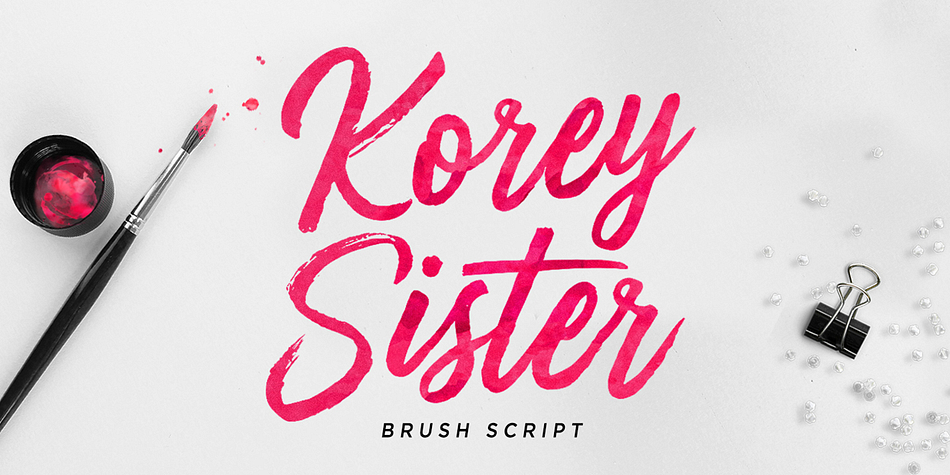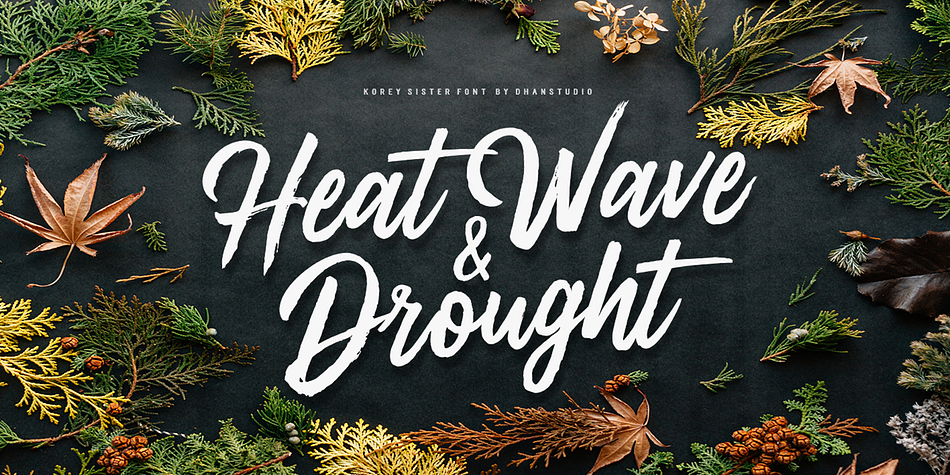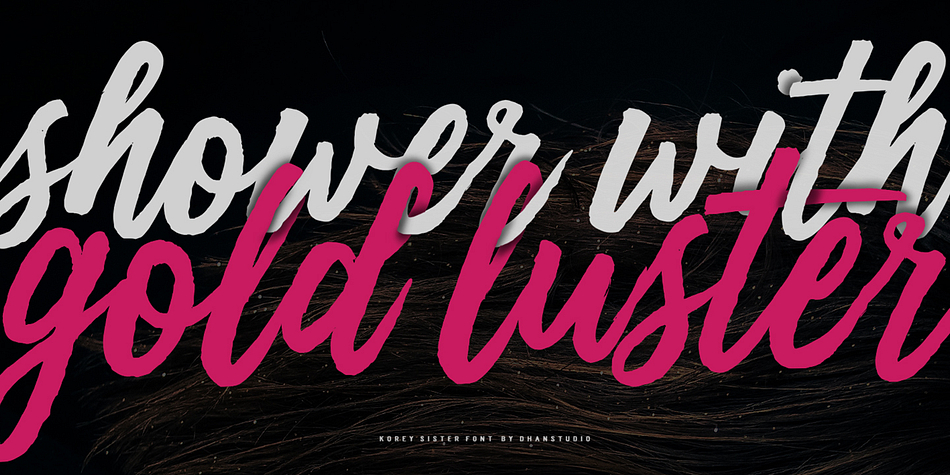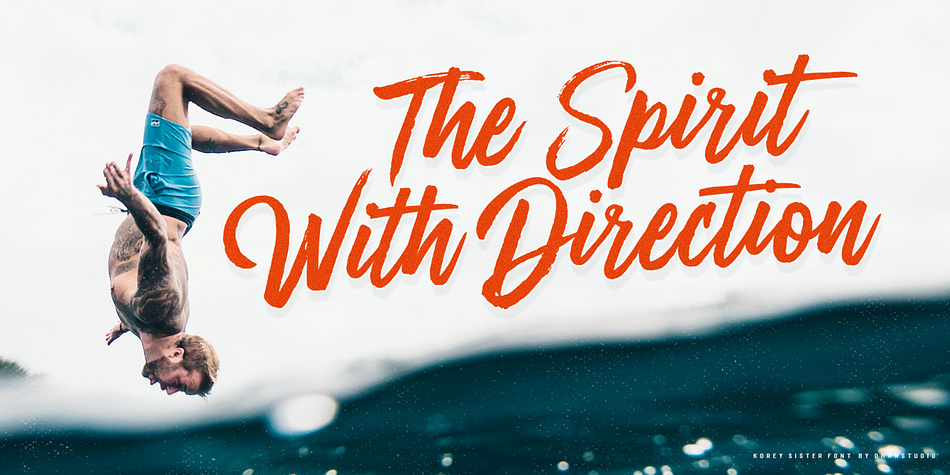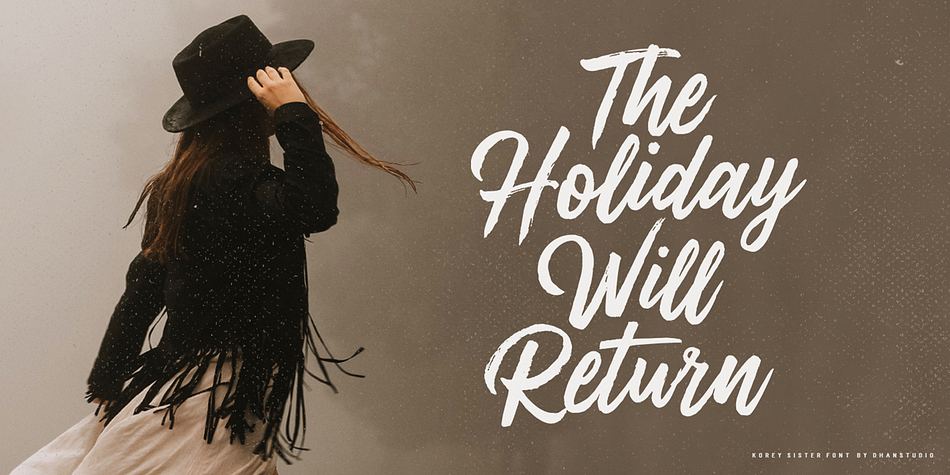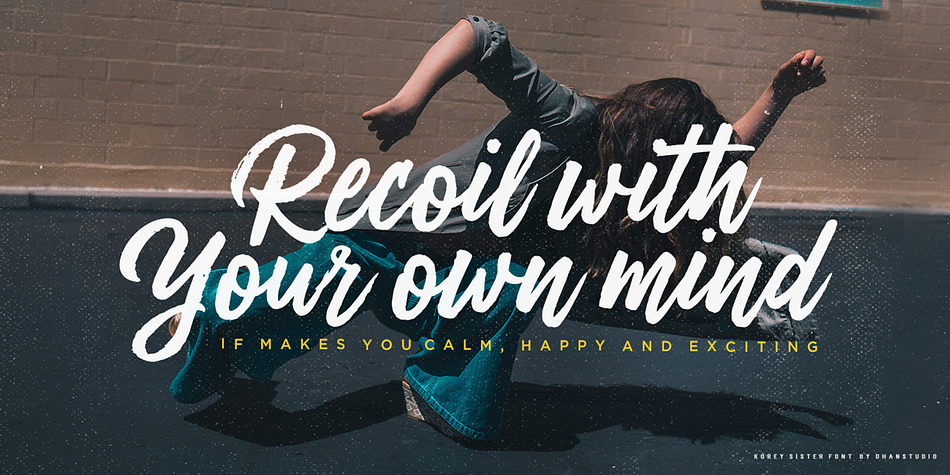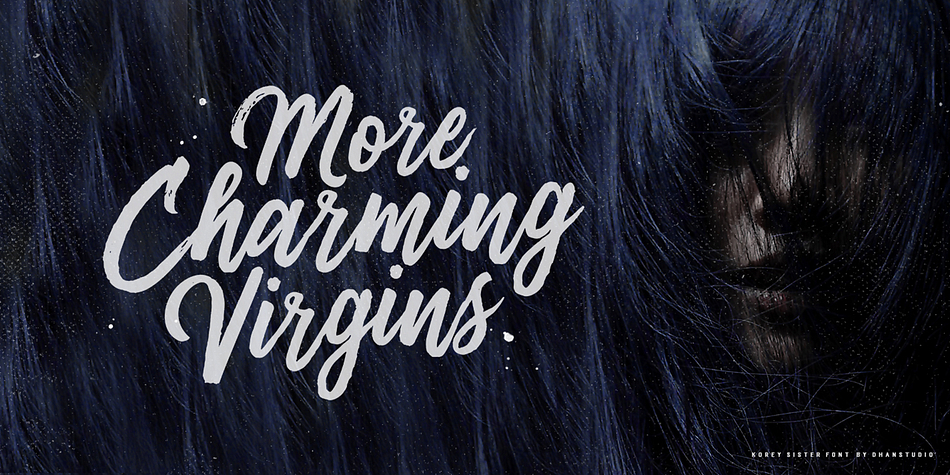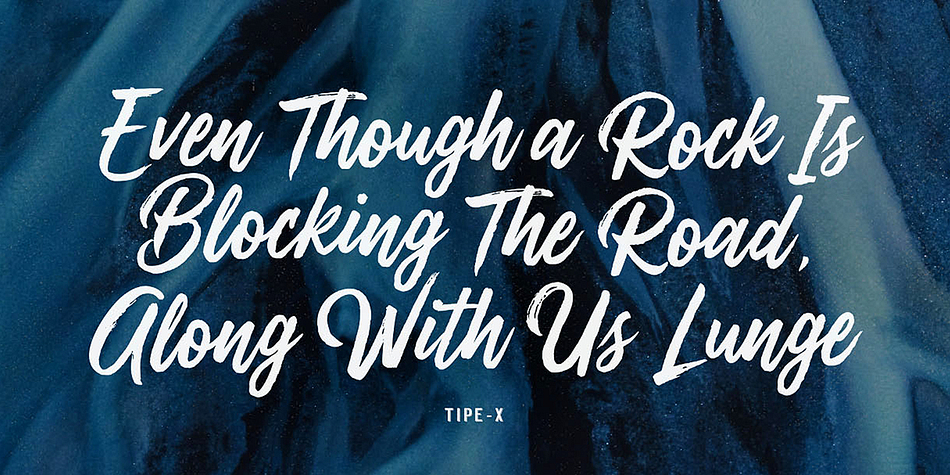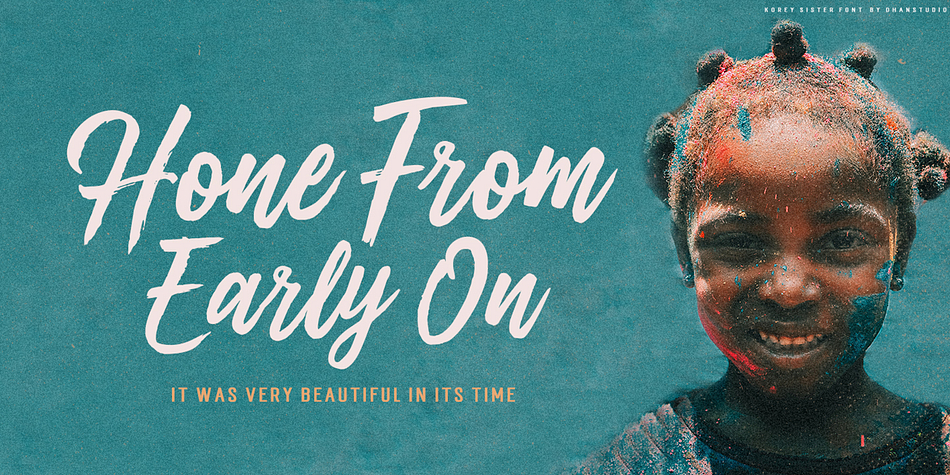
Korey Sister is a brush script and modern calligraphy font published by Dhan Studio.
Korey Sister is a beautiful brush font, a contemporary approach to design,
this is intentionally made by hand to make it more natural and attractive when used in your design.
Suitable for use in title design. Such as clothing, invitations, book titles, stationery designs,
quotes, branding, logos, greeting cards, t-shirts, packaging designs, posters, and others.
Korey Sister includes a complete set of upper and lower case letters, and multi-language support,
numbers, punctuation, and also has Alternatives and ligature.